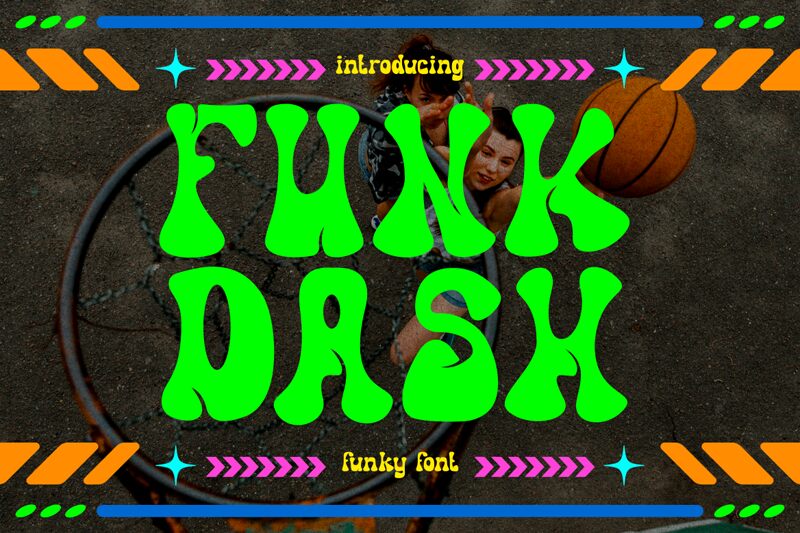
Funkdash font family designed by PutraCetol Studio comes in 2 font styles. This free groovy font family has the perfect amount of funkiness, which is achieved thanks to the unique line style and lively feel. It is inspired by the energetic 1970s, a time that many of us cannot relive, but now can attempt to bring back to life! The uneven character alignment as well as the ascenders and descender traits are just a few of its genuine glorious features.
Funkdash includes two distinct styles, each channeling a retro-inspired visual with a different artistic approach. Perfect for t-shirt and stationery designs, headlines, posters, and books, Funkdash will also look awesome in packaging designs, flyers, and websites.